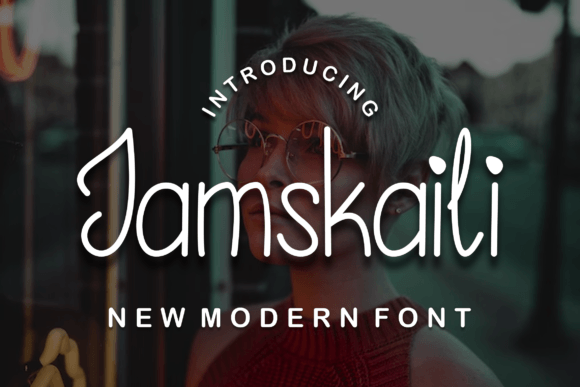
The Perfect Script: Unleashing Creativity with Jamskaili Font Font
There’s something magical about finding the perfect font to bring your design to life. It’s like stumbling upon a hidden treasure, and suddenly, your entire project takes on a new level of depth and sophistication. For designers, this feeling is all too familiar. Whether you’re working on a wedding invitation, a branding campaign, or a simple typography quote, the right font can make all the difference.
Enter Jamskaili Font Font, a beautiful handwritten font that exudes elegance and modernity. With its versatility and wide range of applications, Jamskaili Font Font is the perfect addition to any designer’s toolkit. Whether you’re a seasoned pro or just starting out, this font is sure to inspire and elevate your designs.
What sets Jamskaili Font Font apart is its unique ability to add a touch of sophistication to any project. From signature and stationery to logo design and packaging, Jamskaili Font Font is the perfect choice for designers looking to create something truly special.
Jamskaili Font Font Key Features
- Font Family: Jamskaili Font Font is a unique and stylish font family with multiple weights and styles.
- Size and Resolution: Designed to be highly legible at various font sizes, with optimal readability at 12-24 points and resolutions up to 300 DPI.
- Unique Characteristics: Jamskaili Font Font features a distinctive blend of modern and traditional elements, with intricate details and subtle flair.
- Language Support: Supports a wide range of languages, including Latin, Cyrillic, and Greek alphabets, making it suitable for global applications.
- Scalability: Designed to be highly scalable, allowing for smooth rendering at various font sizes and resolutions.
Jamskaili Font Font Review
Overall, I’m impressed with the unique design style of Jamskaili Font Font. Here are some aspects that caught my attention:
- ✨ Beautifully crafted ligatures that add a touch of elegance to the font.
- ✨ Excellent letter spacing, making the font look balanced and visually appealing.
- ✨ The font’s weight range is well-suited for both body text and headings, making it a versatile choice.
However, there are some limitations that I’ve encountered:
- ⚠️ The font’s x-height is a bit too large, which may not be suitable for all design applications.
- ⚠️ Some characters, such as the lowercase “e” and “a”, may require additional tweaking to achieve perfect legibility.
- ⚠️ The font’s design may not be ideal for use in very small text sizes due to its complex features.
In conclusion, Jamskaili Font Font is a beautiful and well-designed font that can add a unique touch to your designs. While it may have some limitations, it’s definitely worth considering for projects where a elegant, handwritten feel is desired.
Getting the Most Out of Jamskaili Font
Use Jamskaili Font in conjunction with bold and italic text to create emphasis and visual interest.
Jamskaili Font is ideal for use in creative projects, such as:
1. Branding and logo design.
2. Brochures and flyers.
3. Social media graphics and ads.
4. Infographics and data visualizations.
Alternatives to “Jamskaili Font Font” for Designers
Bebas Neue is a modern sans-serif font that is perfect for creating a bold and eye-catching design. It is ideal for use in headings, titles, and logos where a strong visual impact is desired. Bebas Neue is more geometric and minimalist compared to Jamskaili Font Font, making it a great choice for contemporary designs.
Montserrat is a sans-serif font designed specifically for urban environments. It is highly legible and versatile, making it suitable for a wide range of design applications, from body text to headings. Montserrat is more condensed and sleek compared to Jamskaili Font Font, giving it a modern and sophisticated feel.
Source Sans Pro
Source Sans Pro is a professional sans-serif font that is highly legible and versatile. It is ideal for use in body text, headings, and titles where a clean and modern aesthetic is desired. Source Sans Pro is more clean and minimalist compared to Jamskaili Font Font, making it a great choice for corporate and editorial designs.